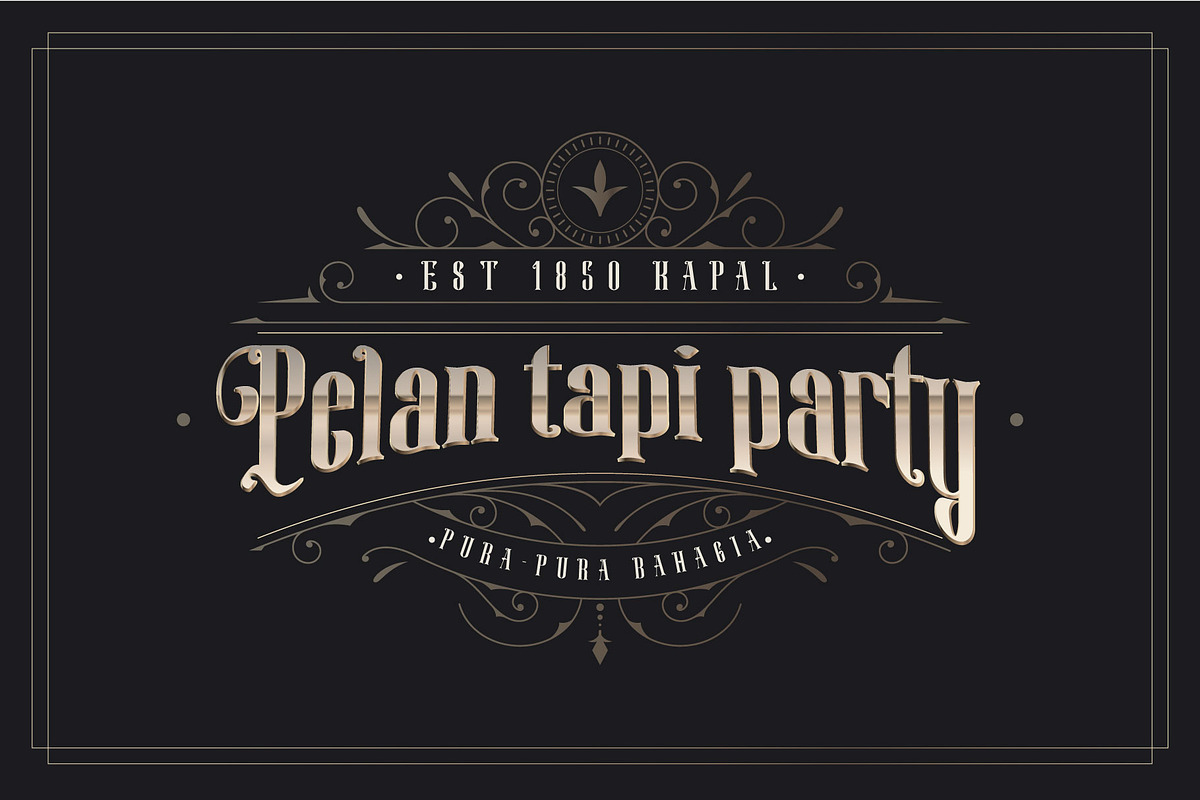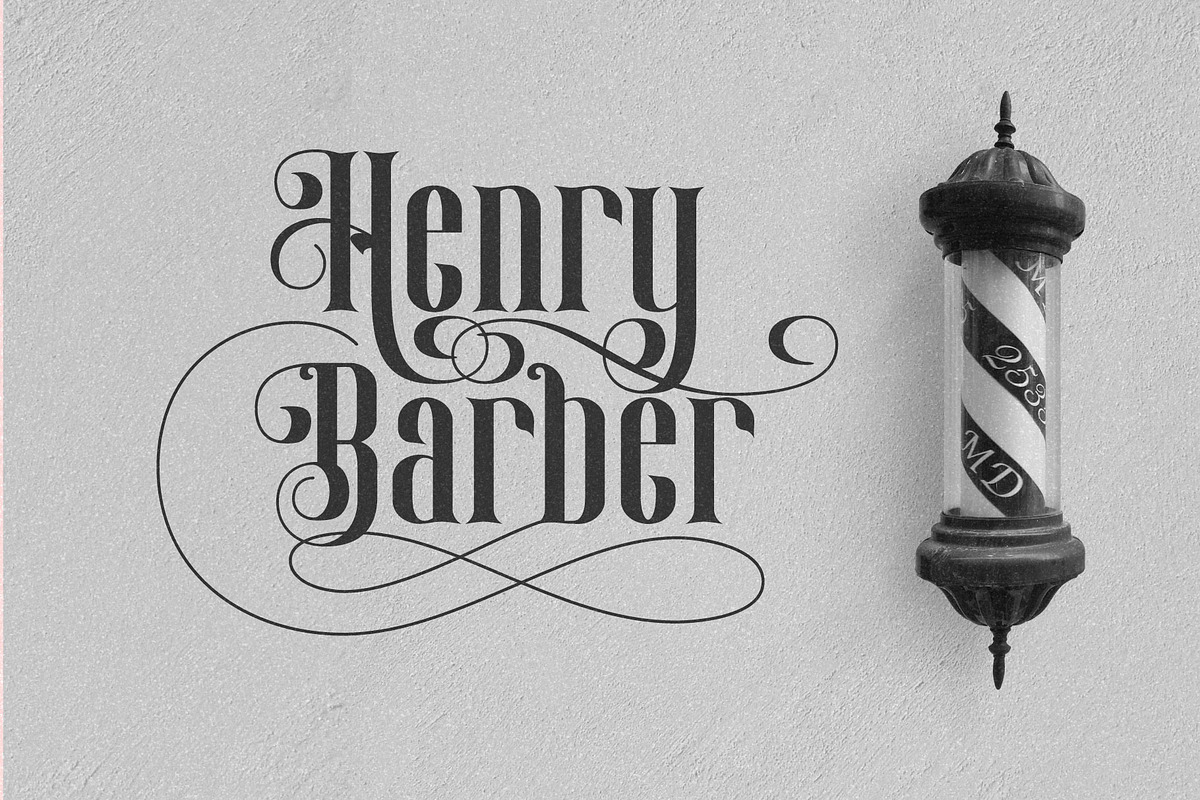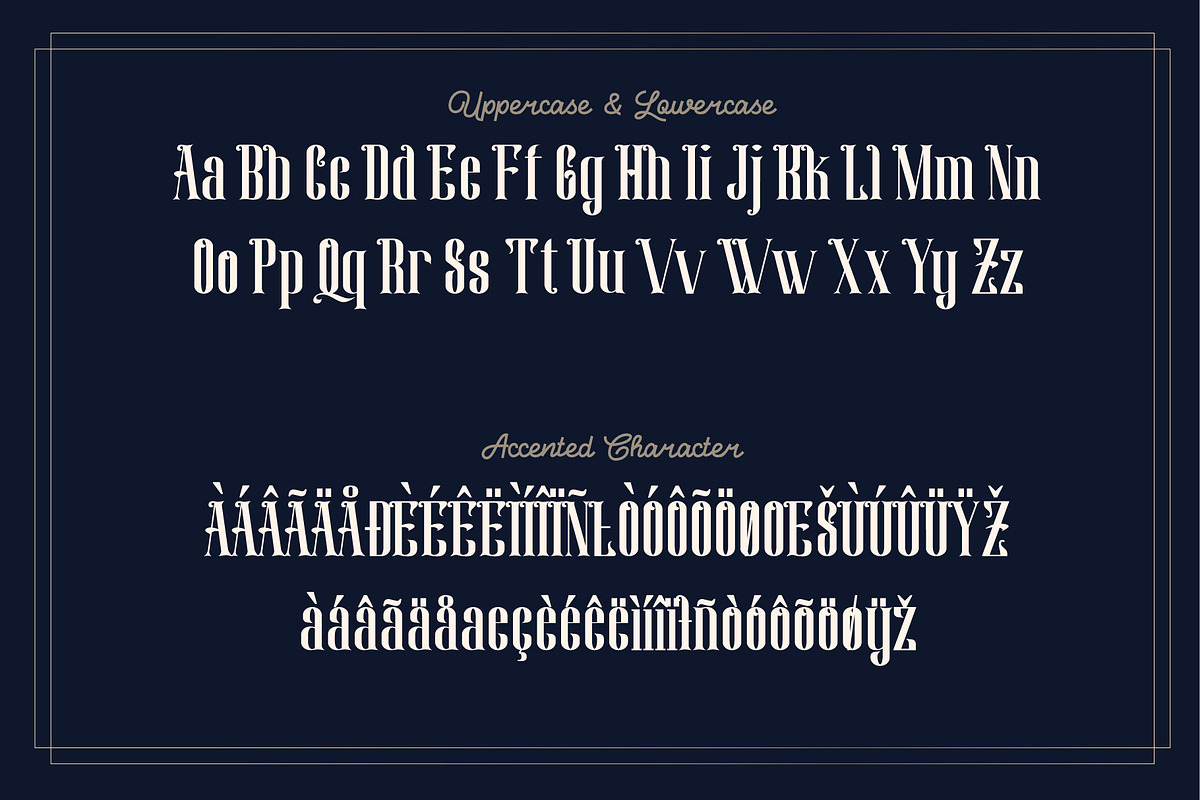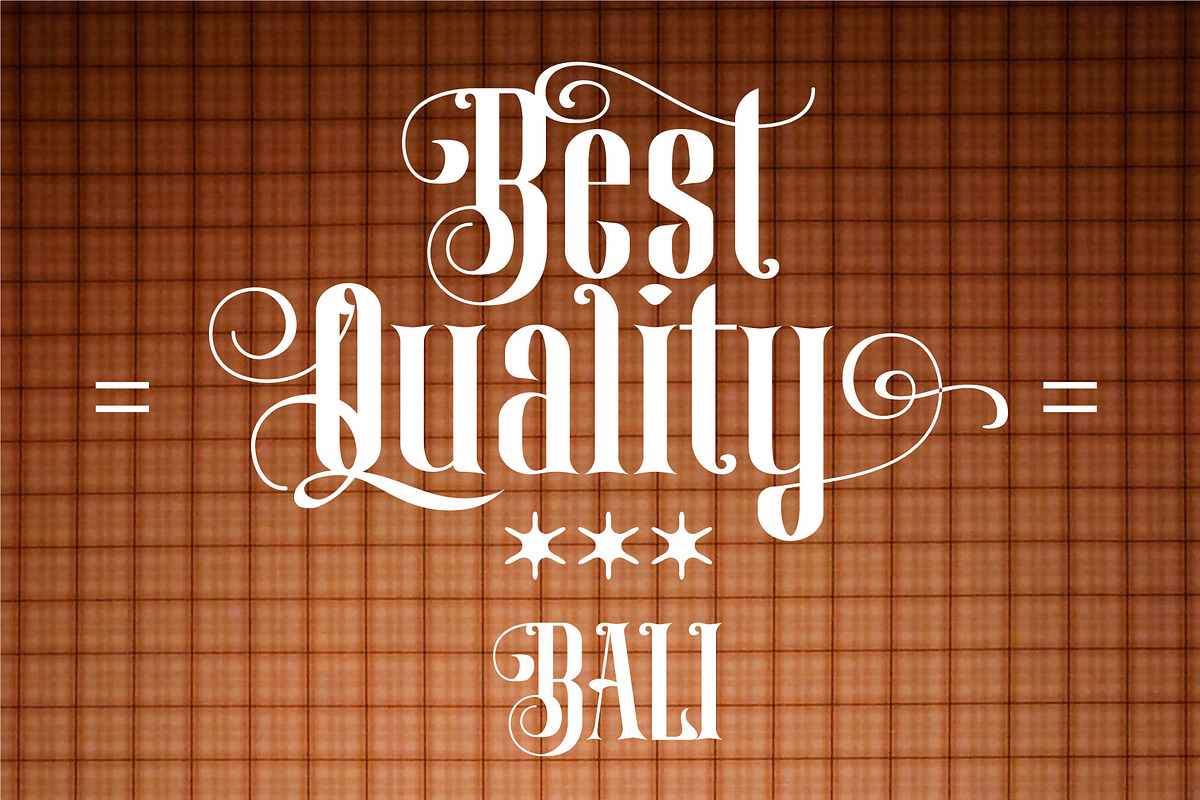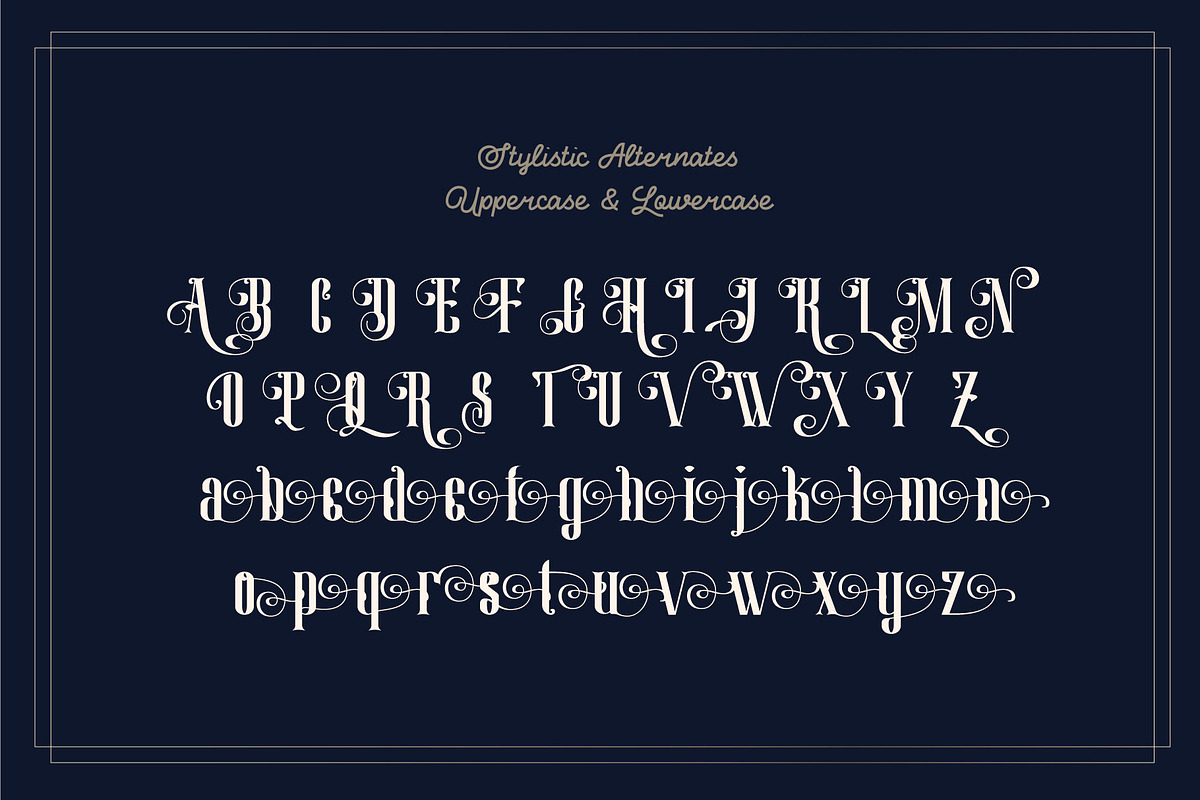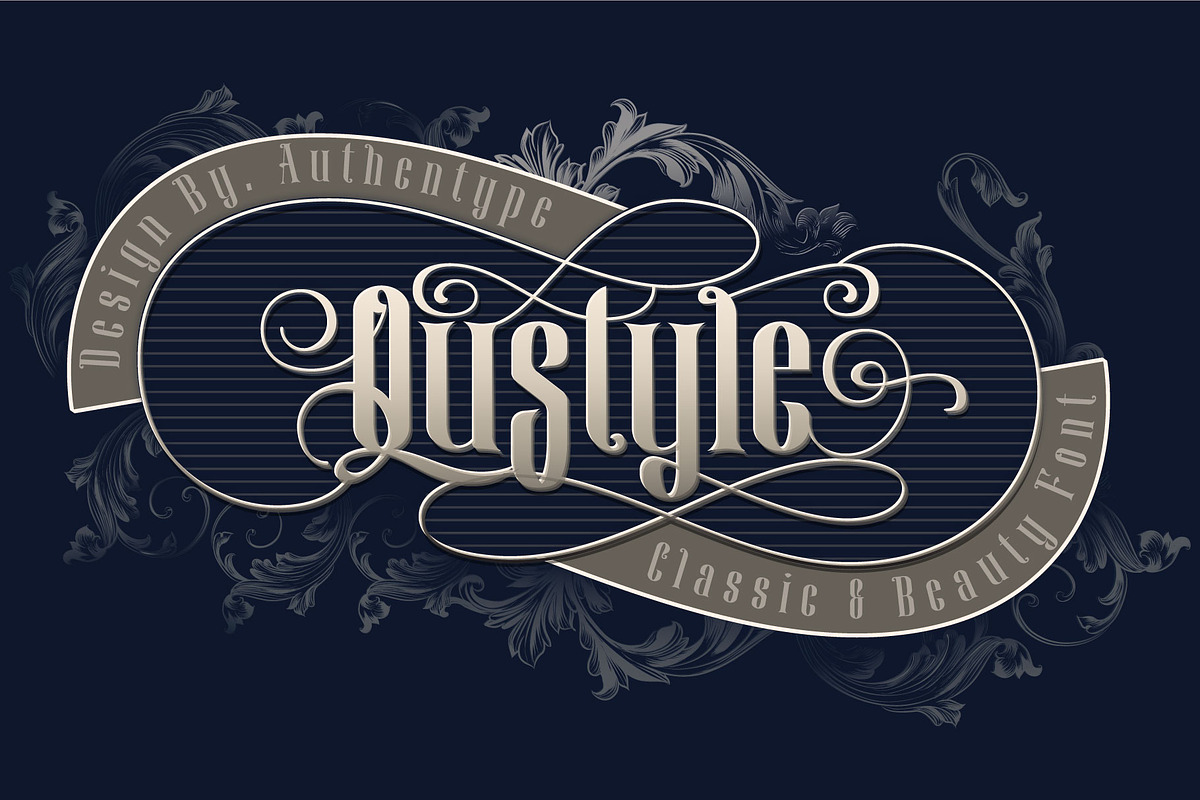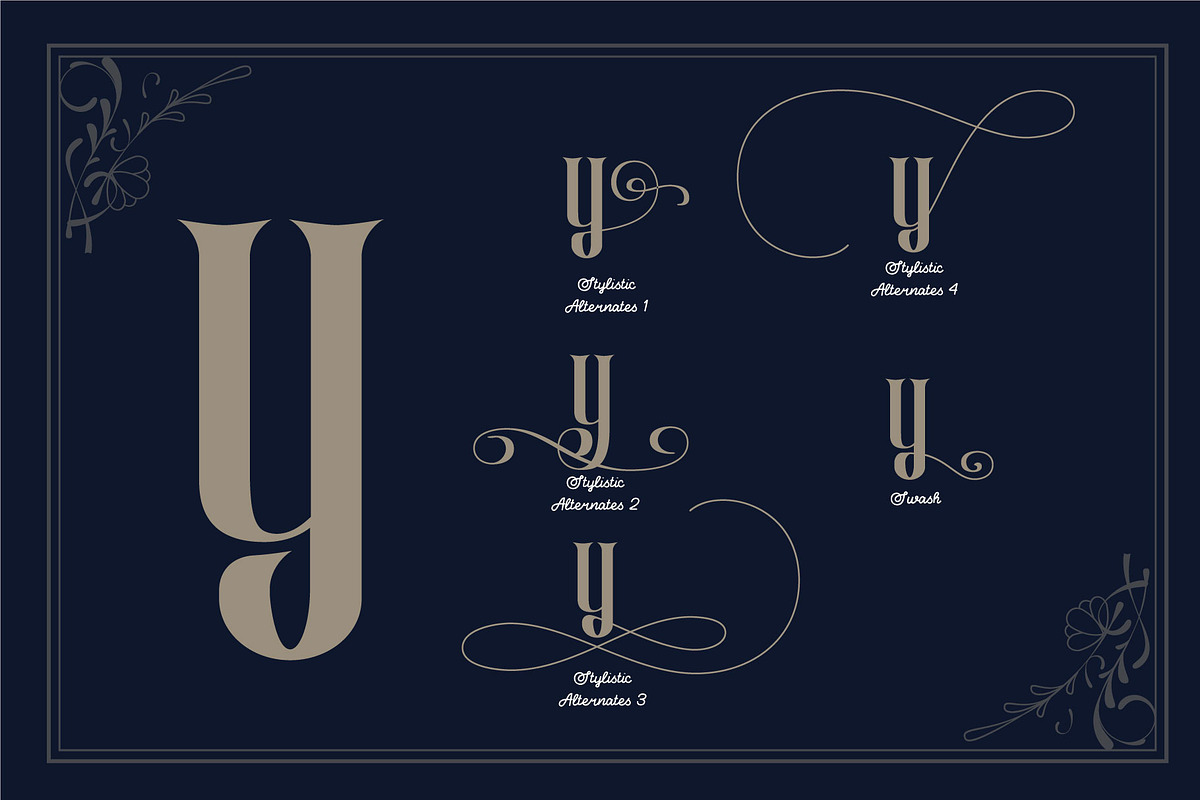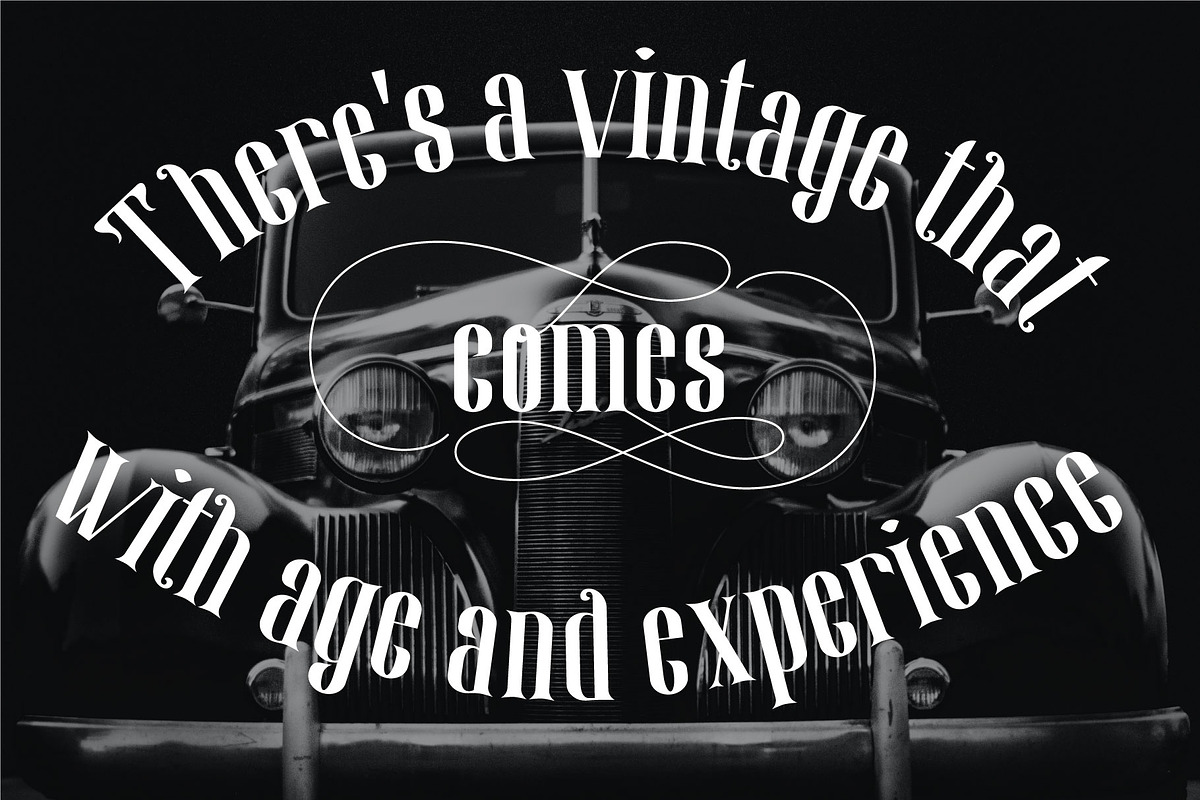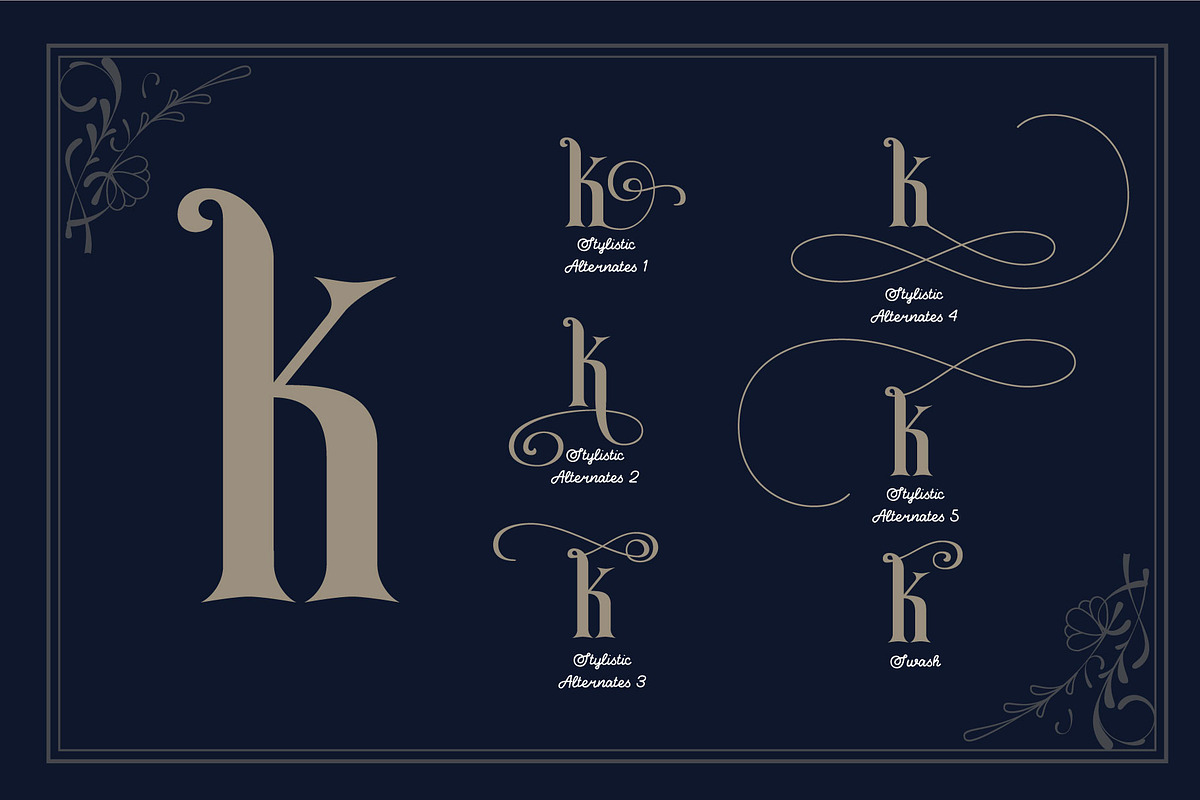
Qustyle Classic Font
Qustyle Classic Font created by Authen Type. This font features a classic and elegant style. Qustyle Classic Font designs are very beautiful to use in branding designs for brochures, logos, and invitations with a neat and varied font concept.
Features Qustyle Classic Font (OTF/TTF/WOF) | Standard glyphs uppercase and lowercase letters | Numerals, a large range of punctuation and ligatures | Lowercase letters include ending swashes | Works on PC & Mac.